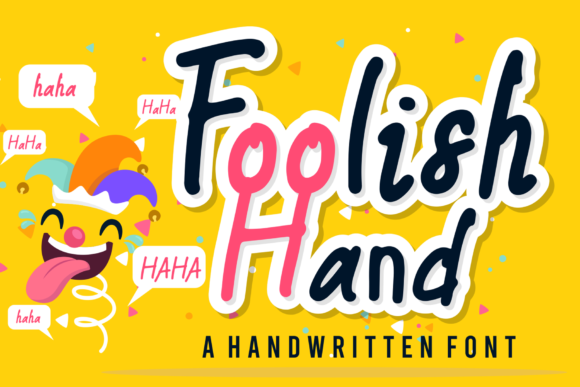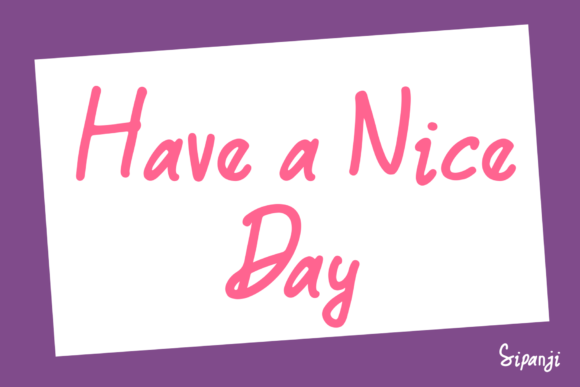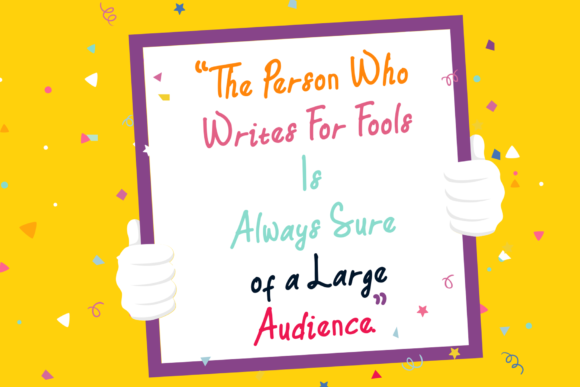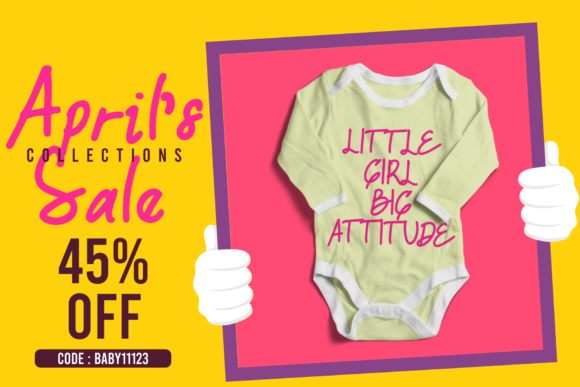
About Foolish Hand Font
Foolish Hand is a whimsical script font with a relaxed theme, featuring a lovely style. No matter the topic, this font will be an incredibly asset to your fonts’ library, as it has the potential to elevate any creation.